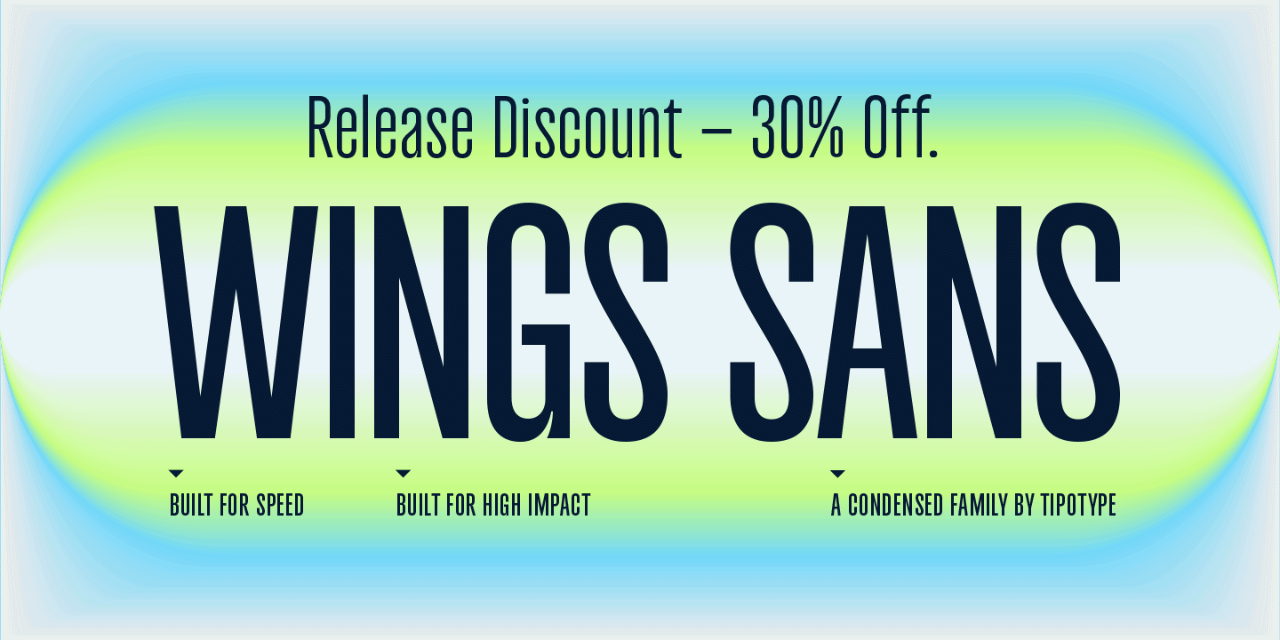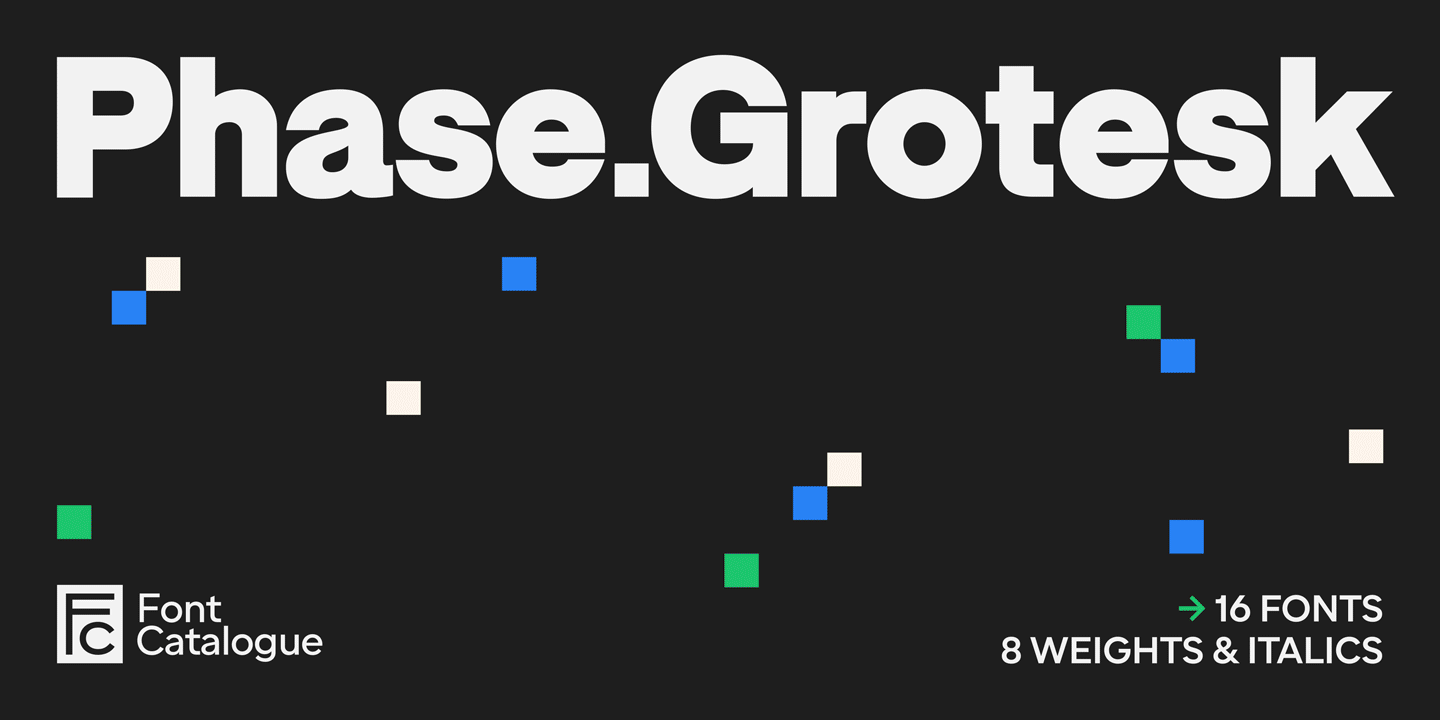
Wings Sans just dropped, plus Phase Grotesk's 60% off deal won't last much longer...
Wings Sans is a condensed display typeface that builds its presence through subtle contrast and a strong rhythm.
Condensed typefaces hold a particular place in design history. From wood type used in posters and press headlines to advertising, sports graphics, and contemporary identity systems, narrow proportions have been used whenever type needs to stand out, hold a strong vertical rhythm, and capture attention.
Wings belongs to that tradition and updates it with a contemporary language.
Its condensed proportions create a distinctive texture, while controlled widths and spacing keep words compact without feeling forced. The result is a typeface with a strong presence, building dense, expressive compositions that stand out especially at large sizes.
There’s a sense of movement in its forms. Its proportions and tight rhythm give words an almost kinetic quality, particularly in headlines, sequences, and stacked compositions.
Wings Sans is designed for identities, posters, editorial projects, packaging, and sports and entertainment graphics—in general, for contexts where typography plays the leading role.
Phase Grotesk is a contemporary sans serif built on a principle of low contrast: stroke widths remain uniform throughout, creating a stable and rhythmic texture. Its curves are tensioned and slightly compressed, deliberately avoiding the perfect circle to achieve a technical character. The apertures are closed — the e, c, and a let in little air — because the family also looks backward, toward those early sans serifs of signage, forgotten catalogs, and vanished foundries, rescuing their weight mismatches and uncorrected optical adjustments that gave them a sincere, unpretentious character.
Those imperfections make themselves felt at large display sizes, but soften at text sizes so reading flow is never compromised. The result is a typeface that holds its own in high-impact typographic compositions — extreme scales, repetitions, overlaps — while remaining functional in interface, editorial, and branding contexts where performance matters as much as presence.
With 16 fonts across 8 weights and matching italics, Phase Grotesk offers a complete system for visual identities that demand both range and consistency.